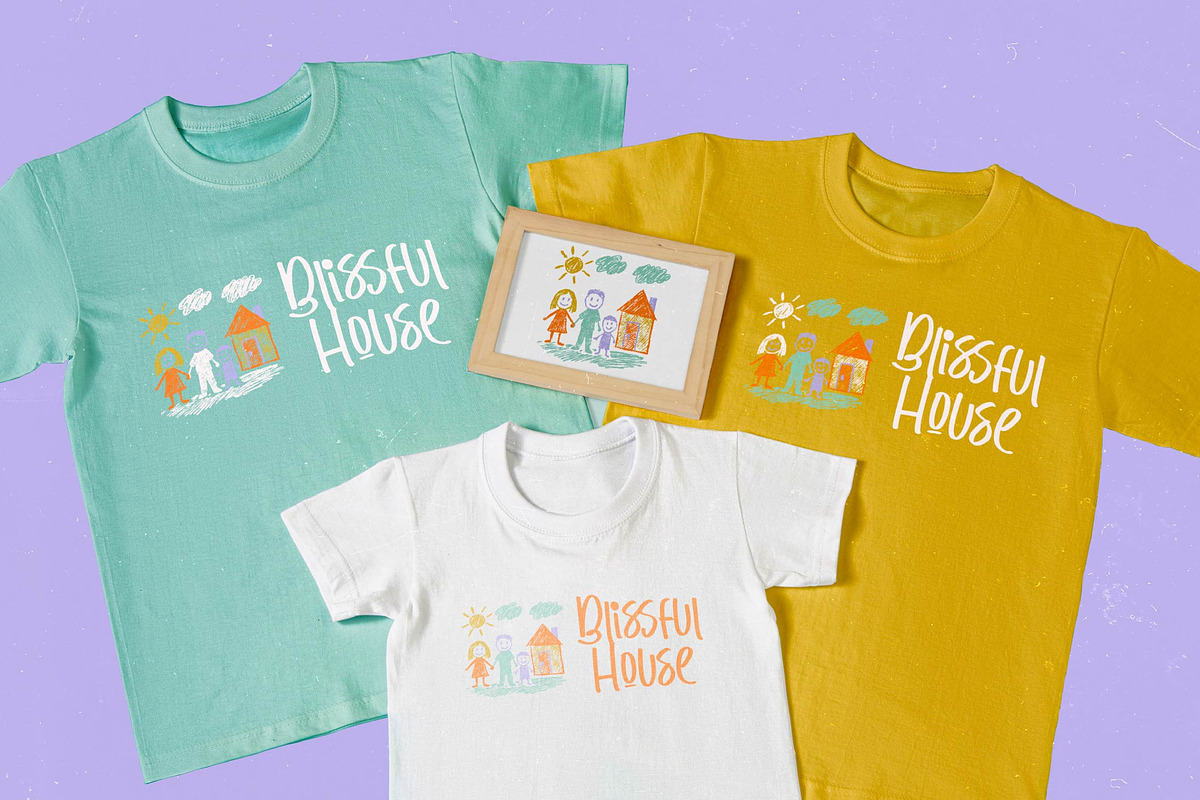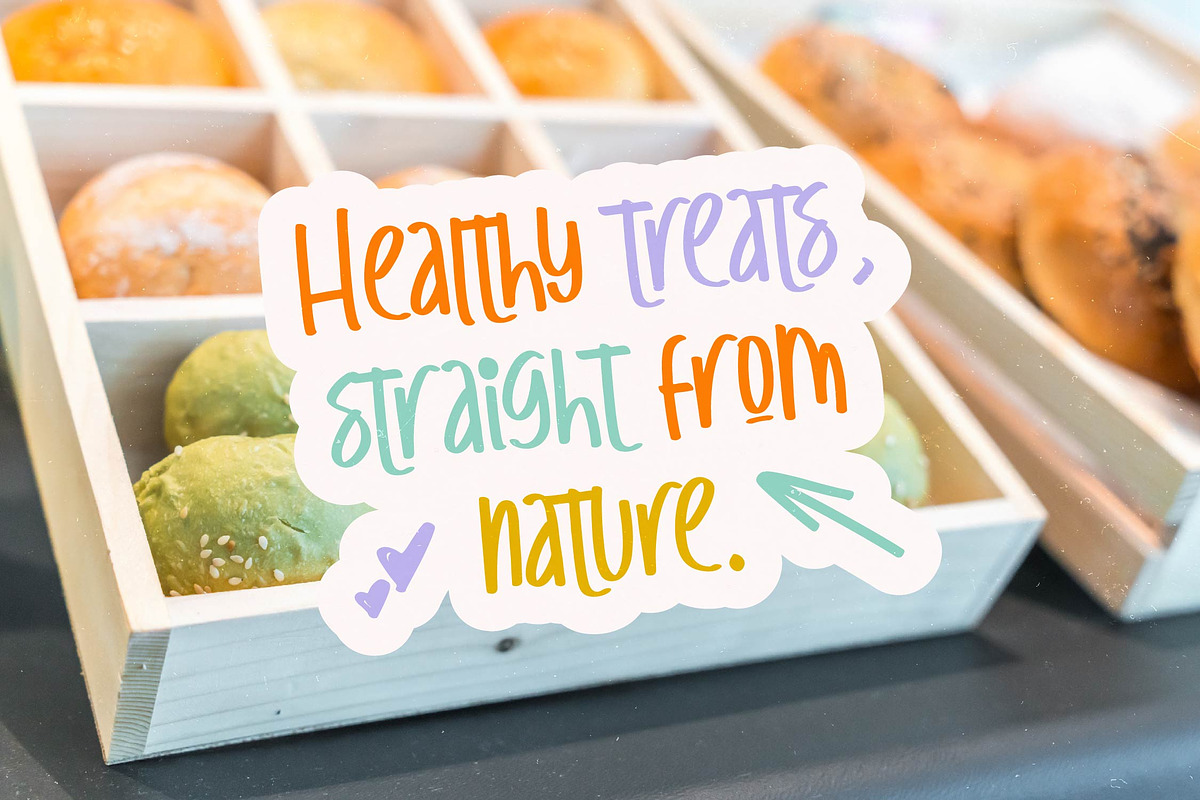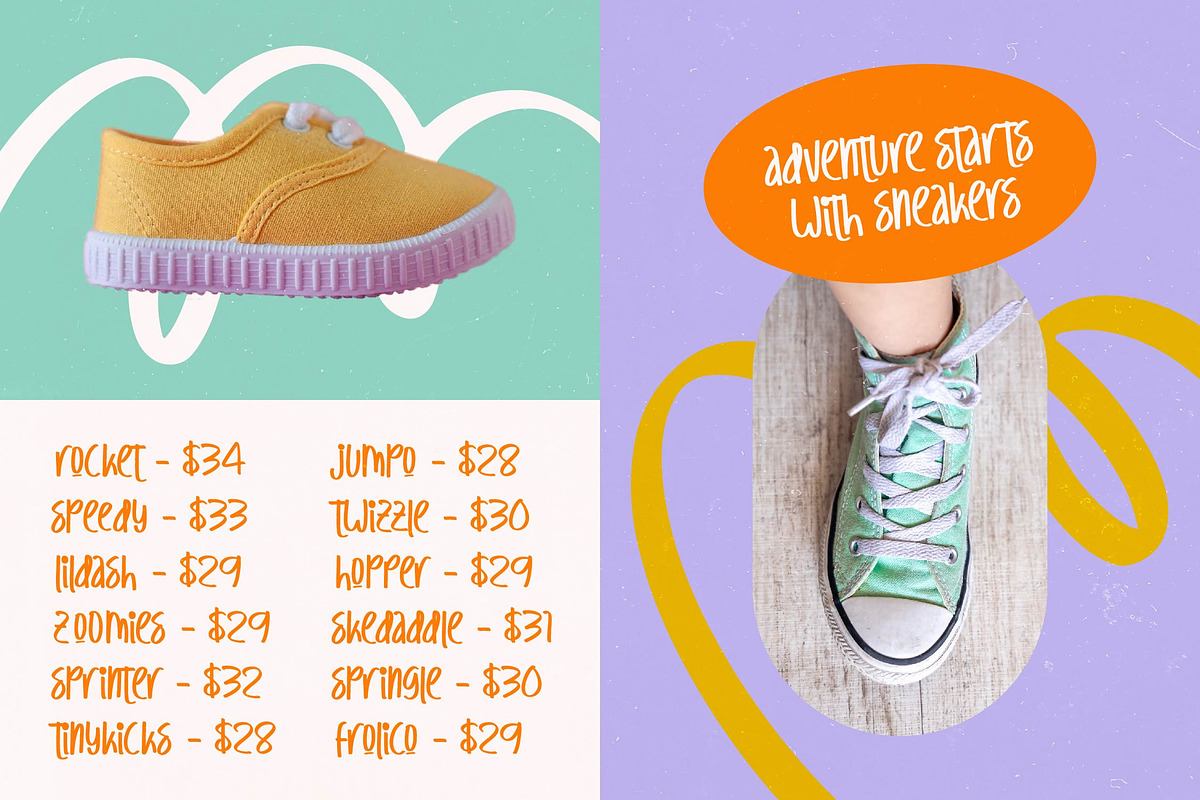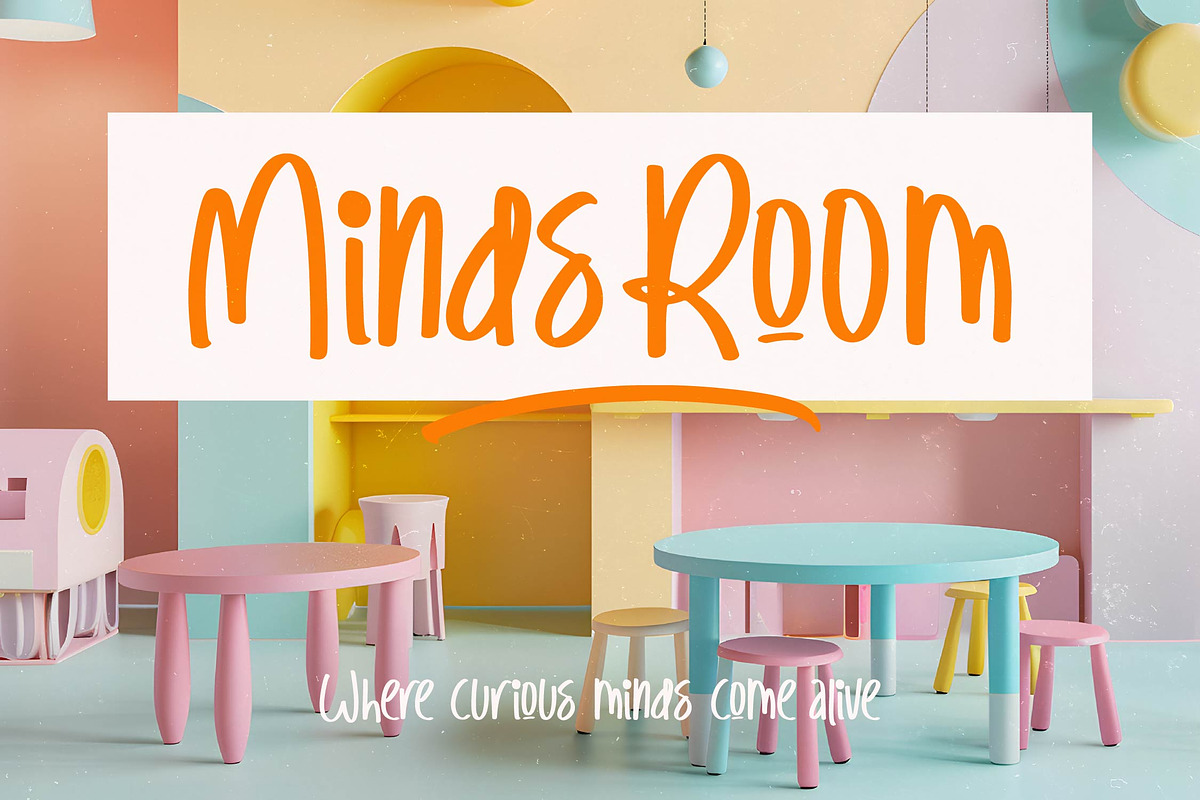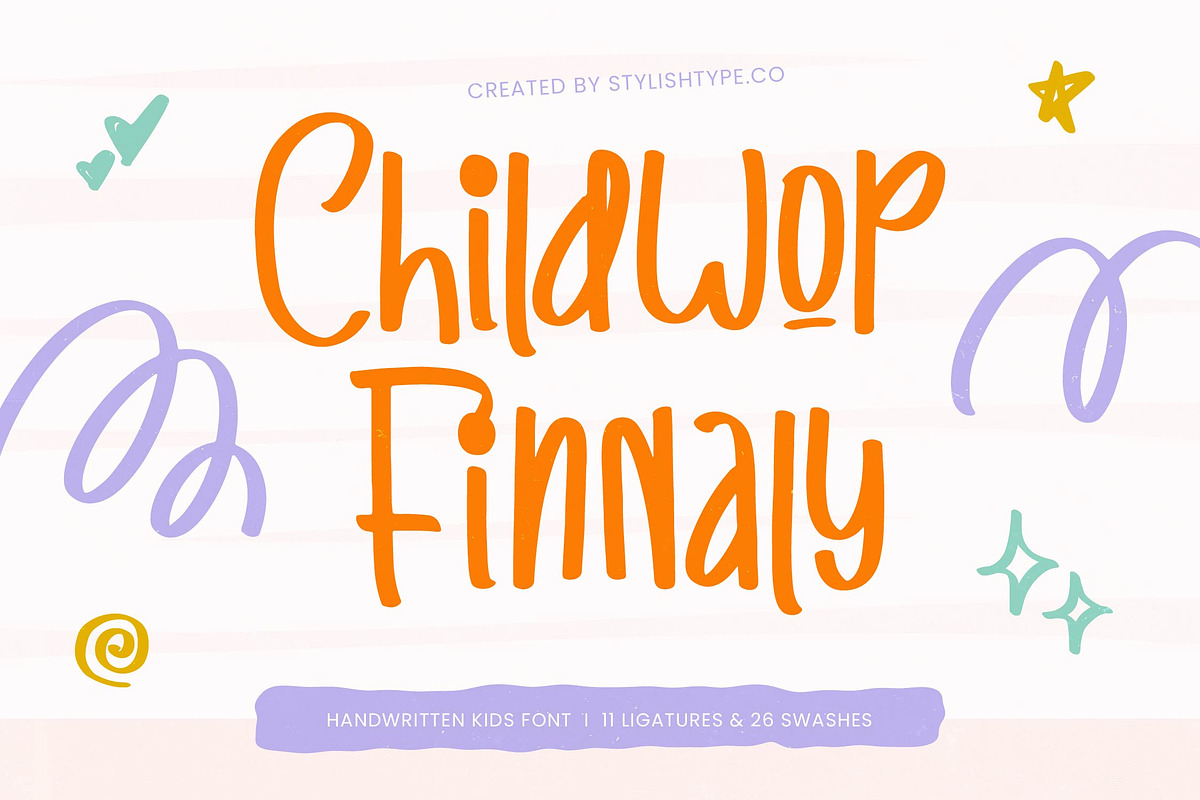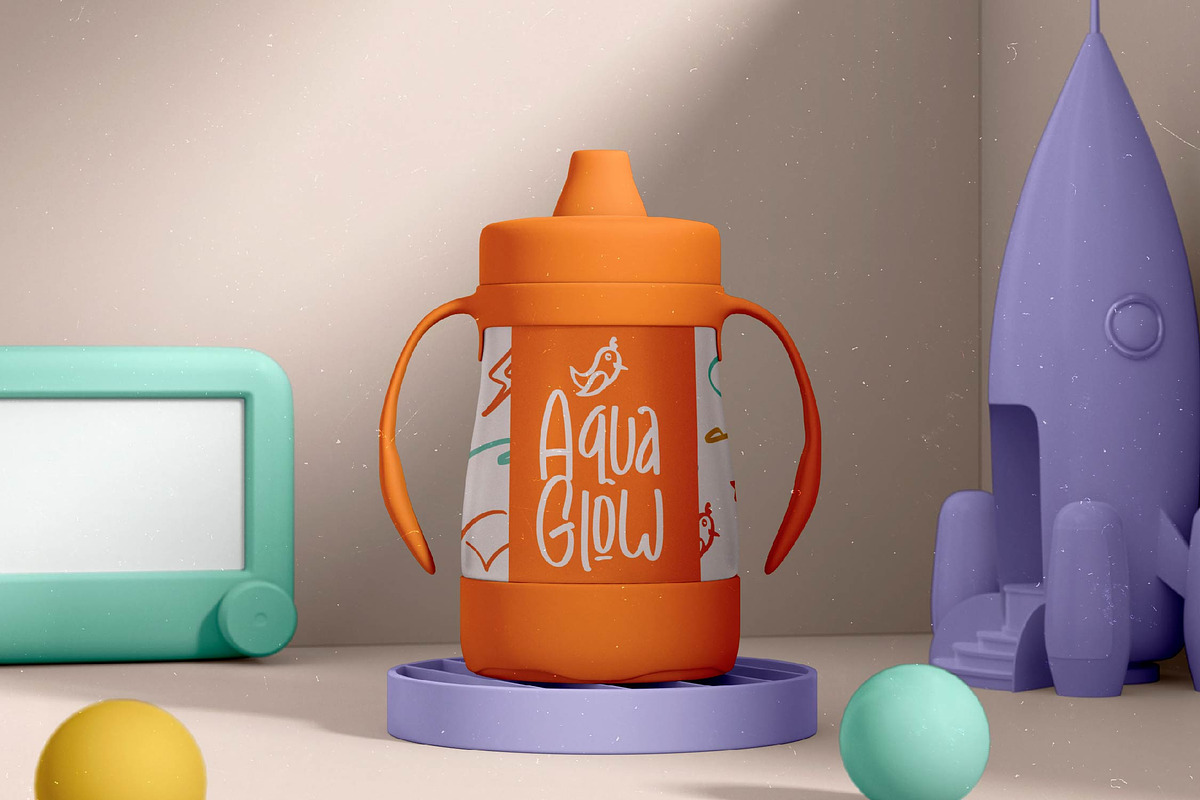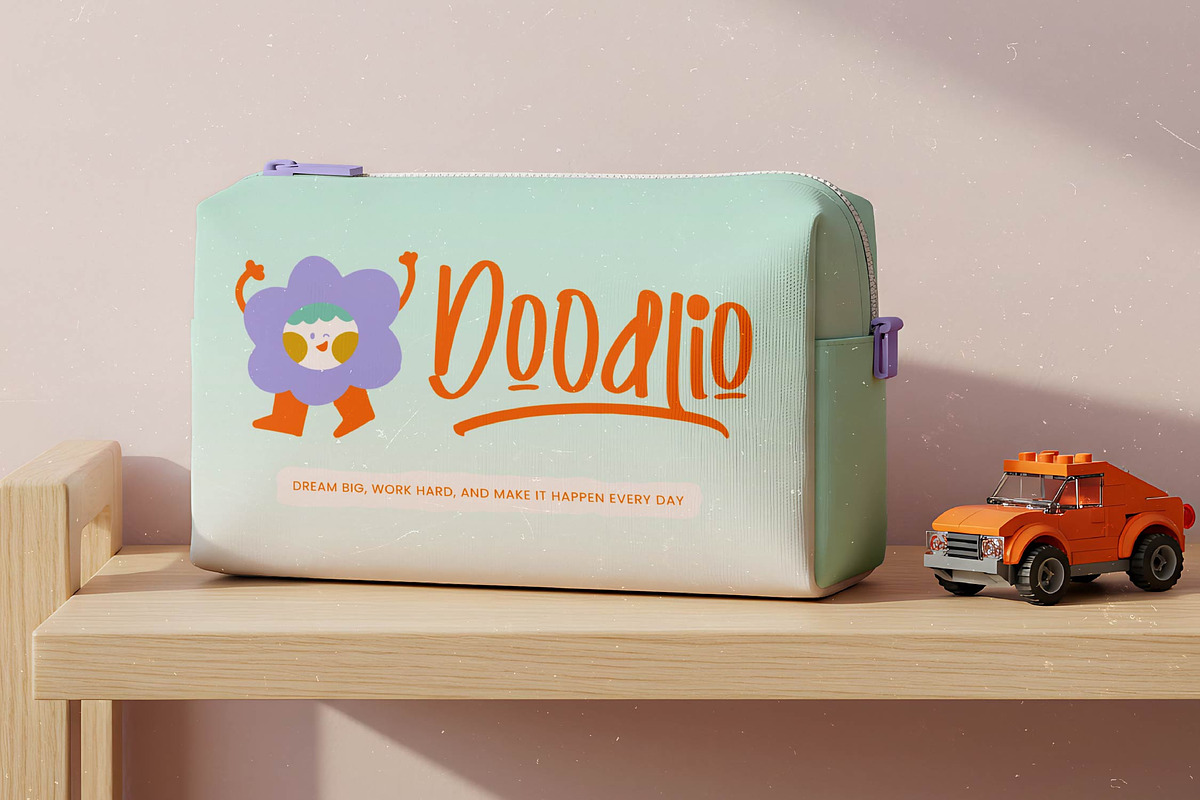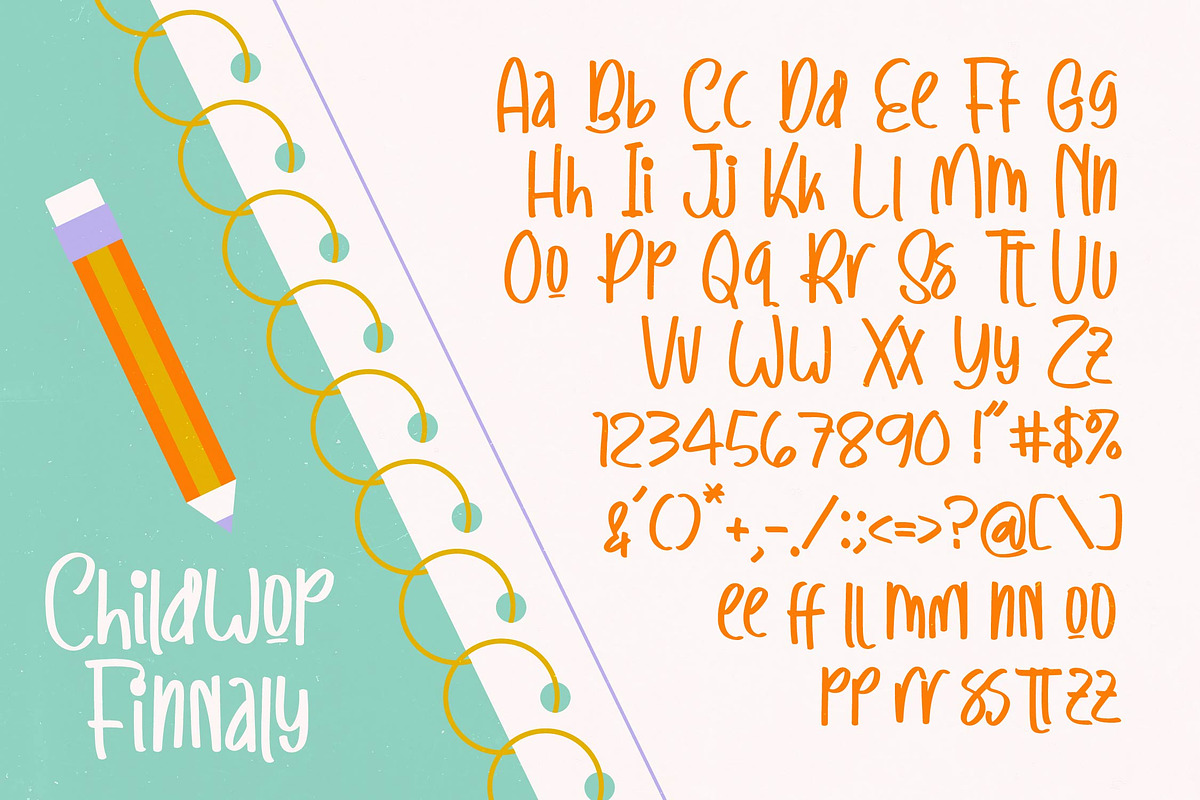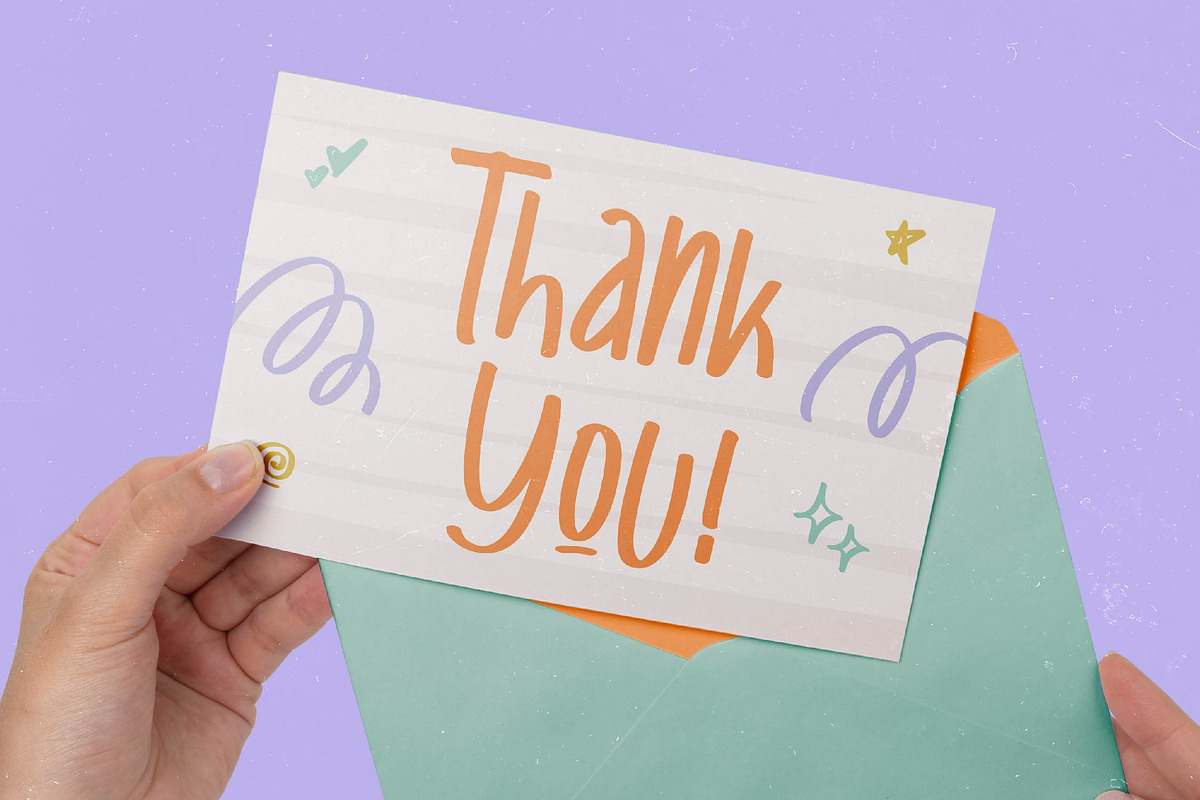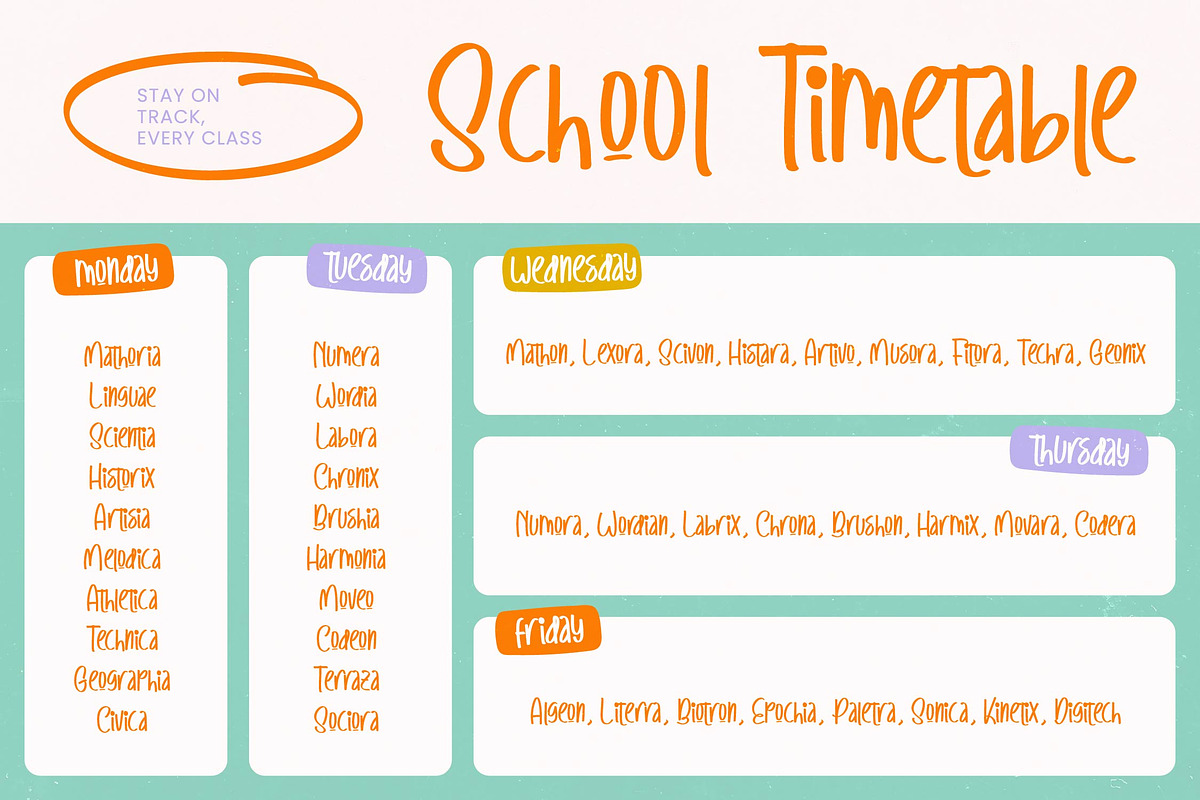
Childwop Finnaly Handwritten Kids
Childwop Finnaly - Handwritten Kids Font , Captivate your audience with the playful charm of Childwop Finnaly - Handwritten Kids Font, a typeface designed to bring a vibrant aesthetic and handcrafted appeal to every design project. This font expertly balances whimsical character with a clean, legible structure, making it an essential tool for designers seeking to evoke a sense of warmth and creativity. With its dynamic letterforms and engaging rhythm, Childwop Finnaly - Handwritten Kids Font transforms standard layouts into memorable visual stories that resonate deeply with both children and adults alike.
Unlock unparalleled creative flexibility with the extensive features of Childwop Finnaly - Handwritten Kids Font, which includes 11 custom ligatures and 26 artistic swashes. These meticulously crafted elements allow for a personalized touch, ensuring that your typography feels organic and unique rather than repetitive. The deliberate stroke consistency and organic flow of Childwop Finnaly - Handwritten Kids Font maintain high readability across various platforms, from high-resolution print to digital interfaces, providing a polished and professional finish to your creative assets.
Bridge the gap between local charm and international reach through superior functional design and global compatibility. With its extensive multilingual support, Childwop Finnaly - Handwritten Kids Font adapts seamlessly across global markets, making it incredibly versatile for international projects. This universal accessibility ensures that your brand’s playful personality remains consistent across different languages and regions, solidifying Childwop Finnaly - Handwritten Kids Font as a strategic choice for diverse marketing campaigns and cross-cultural storytelling.
Elevate your brand identity with a font that is perfect for children's book illustrations, educational materials, and product packaging design. Whether you are working on mobile app development, social media marketing, or creative editorial layouts, Childwop Finnaly - Handwritten Kids Font provides the visual impact needed to stand out in a competitive marketplace. It is the ideal solution for lifestyle branding, toy packaging, and themed events where a friendly and approachable tone is paramount to commercial success.